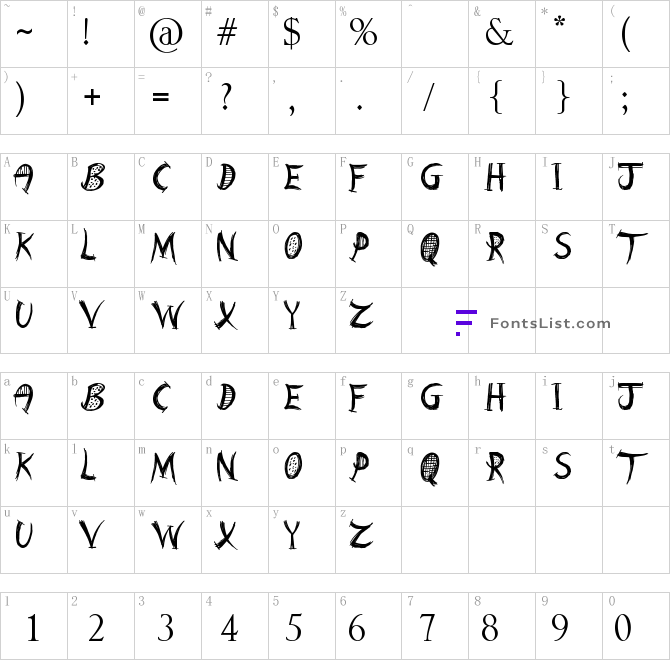
- Font Name:Barn Animal
Barn-Animal.ttf is a very beautiful artistic font, Barn-Animal.ttf is widely used in the design and printing of various books and pictures,Barn-Animal.ttf has a strong visual impact,Barn-Animal.ttf is a commonly used font in newspapers, magazines and books, and is used in posters, e-commerce Poster design, store design, logo design, font design and other fields.Barn-Animal.